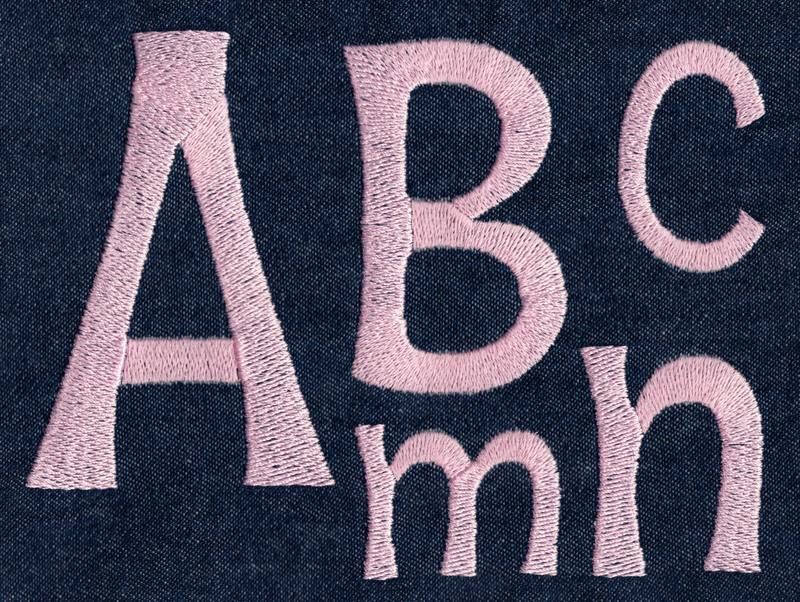
548 Aloha SatinFill Font
Aloha SatinFill Font comes in 2", 3" and 4" heights based on the capital "A". All sizes are included in purchase price. All sizes are finished in SatinFill Stitch (see image above). Includes uppercase letters, lowercase letters, numbers and six punctuation marks.